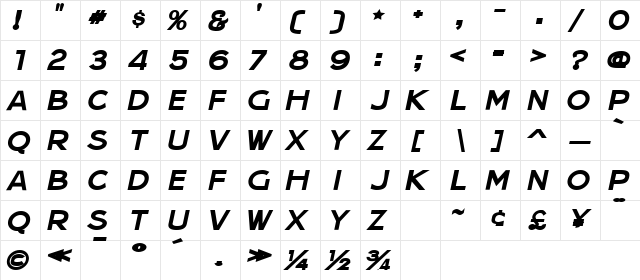
Jera Sans Bold Italic JL Regular Font Preview
Design Context for Jera Sans Bold Italic JL Typeface
Jera Sans Bold Italic JL takes a measured approach to typography — its balanced proportions and neutral character make it a reliable workhorse for both digital and print work. Its italic angle brings a sense of urgency and motion to the letterforms. Its bold stroke weight gives it real presence on the page.
Pro Tip: Use Jera Sans Bold Italic JL for emphasis, pull quotes, and subheadings where its slanted energy can add rhythm to the layout.